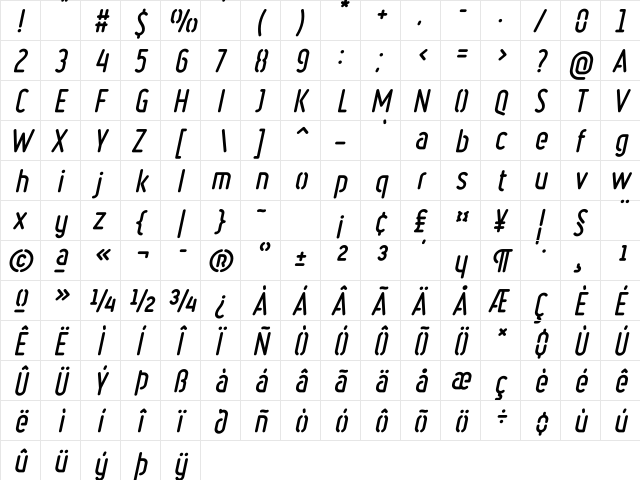
Ruler Stencil Bold Italic
Design Context for Ruler Stencil Typeface
Ruler Stencil has the rough pragmatism of spray-painted stencil signage, adding a raw, street-level authenticity to designs. Its italic angle brings a sense of urgency and motion to the letterforms. Its bold stroke weight gives it real presence on the page.
A strong choice for packaging that needs edge, warehouse aesthetics, and rough-and-ready visual identities.
Pro Tip: Use Ruler Stencil at large sizes on packaging, posters, or apparel where the stencil cutaways read clearly. Avoid small sizes where those gaps become visual noise.